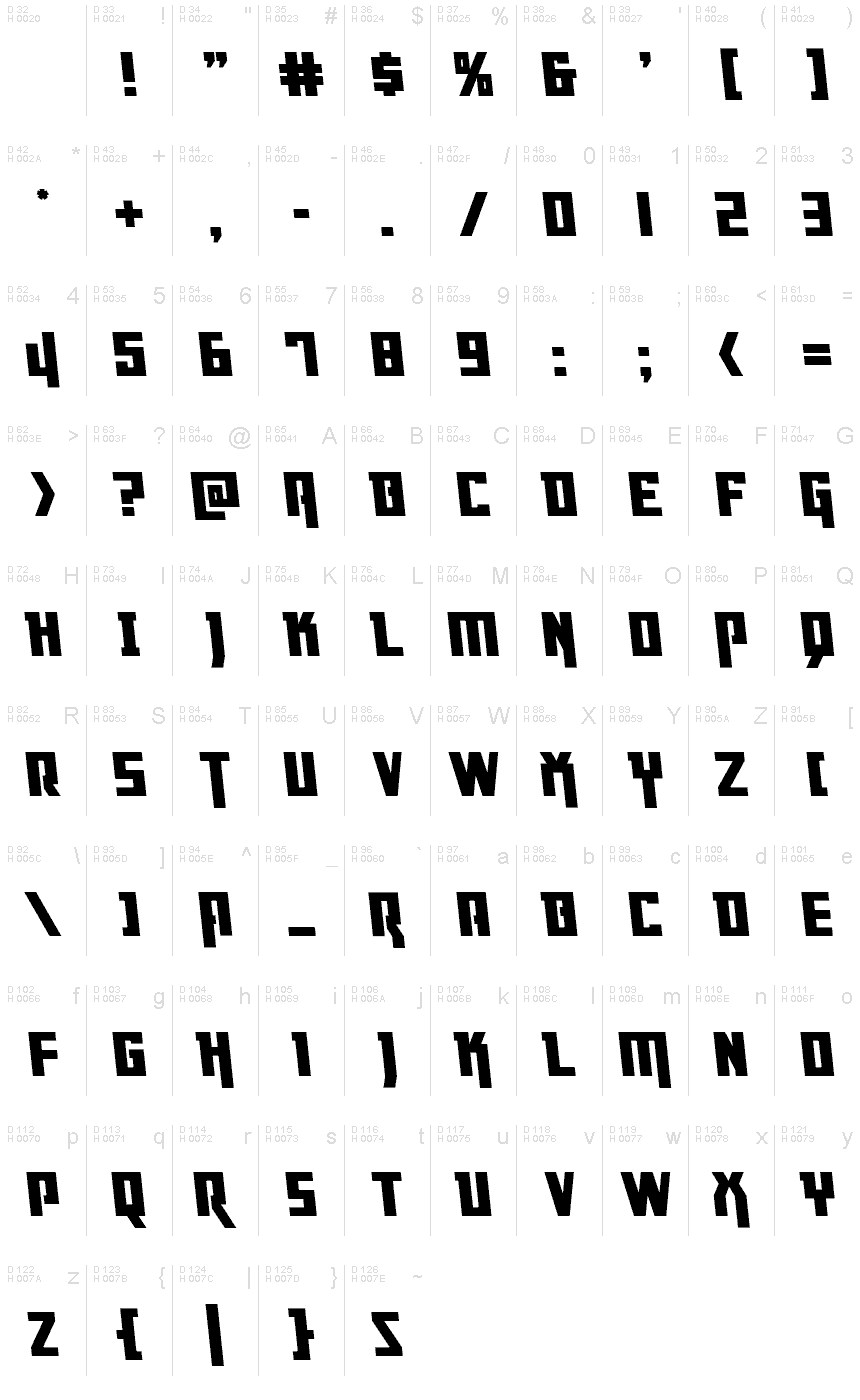
Danger Flight Semi-Leftalic
Danger Flight Semi-Leftalic is a premium futuristic font from Iconian Fonts. Each character is a series of geometric shapes and sharp angles will give you an aggressive yet legendary look. As a bold display typeface, its thick letters make sure your title is visible from a distance. Curious about what semi-leftalic means? It’s simply another name for oblique or slanted that would always give the result of cursive-like characters.